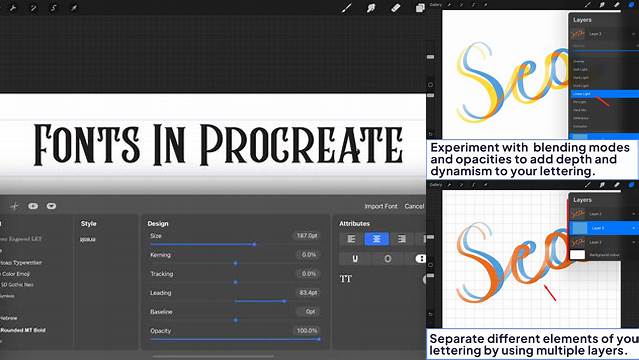
Download Fonts To Procreate: Easy Guide (2024)
Hey guys! Ever felt like your Procreate artwork was missing that special something? Chances are, it might just be the font! Choosing the right font can really elevate your designs, making them pop and convey the perfect message. But, how do you actually get those cool fonts into Procreate? Don't worry, we've got you covered. This comprehensive guide will walk you through everything you need to know about downloading and installing fonts in Procreate, turning you into a typography pro in no time. So, let's dive in!
1. Understanding Font Types and Procreate Compatibility
Before we even get into the nitty-gritty of downloading, it's crucial to understand what kind of fonts Procreate actually plays nice with. Not all fonts are created equal, you know? Procreate primarily supports TrueType Fonts (.ttf) and OpenType Fonts (.otf). These are the industry standards and you'll find most fonts available in these formats. Trying to import other font types? You might run into some serious compatibility issues. So, always double-check the file extension before you hit that download button! Knowing this simple fact can save you a ton of headache later on. Imagine spending ages finding the perfect font only to realize it won't even work – talk about a bummer!
TrueType Fonts (.ttf): The Classic Choice
TrueType fonts have been around for a while, and they're a reliable choice for most design projects, including Procreate. They're widely supported and generally smaller in file size, which is a bonus if you're working with limited storage on your iPad. While they might not have all the fancy features of OpenType fonts, TrueType fonts get the job done and are super easy to work with. Think of them as the dependable workhorses of the font world! They’re also incredibly versatile, ranging from simple sans-serif styles to elegant scripts. You’ll find a massive selection of TrueType fonts both free and paid, so you’re bound to find something that suits your project.
OpenType Fonts (.otf): The Feature-Rich Option
OpenType fonts are the newer, more advanced sibling of TrueType. They offer a wider range of features, including ligatures, alternate characters, and different stylistic sets. This means you can get a much more polished and professional look with OpenType fonts, especially for detailed typography work. If you're aiming for that extra level of finesse, OpenType is definitely the way to go. Imagine adding beautiful swashes and flourishes to your lettering – OpenType makes it all possible! Plus, they often support a broader range of languages and character sets, making them ideal for international projects.
Why Compatibility Matters in Procreate
Okay, so why all this fuss about font types? Well, Procreate is a fantastic app, but it does have its limitations. Trying to import incompatible fonts can lead to crashes, display errors, or just plain failure to load. Trust us, you don't want to be in the middle of a masterpiece and have your font suddenly disappear! So, sticking to TTF and OTF formats is the safest bet. Before you start downloading fonts like crazy, take a moment to ensure they are in a compatible format. A little bit of caution upfront can save you a whole lot of frustration down the line.
2. Finding Reputable Font Sources Online
Now that we know what kind of fonts we're looking for, where do we actually find them? The internet is a vast ocean of fonts, but not all sources are created equal. You want to make sure you're downloading from reputable sites to avoid malware or copyright issues. There are tons of fantastic websites offering both free and premium fonts, so let’s explore some of the best options! Think of it like treasure hunting, but instead of gold, you're searching for the perfect font!
Google Fonts: A Free Font Goldmine
Google Fonts is a fantastic resource for high-quality, free fonts. They have a huge library with a diverse range of styles, from classic serif fonts to modern sans-serifs and everything in between. Plus, all the fonts on Google Fonts are open-source, which means you can use them in both personal and commercial projects without worrying about licensing fees. It’s a total win-win! The interface is super user-friendly too, allowing you to easily preview fonts and filter by categories. If you're just starting out or working on a budget, Google Fonts is an absolute lifesaver.
DaFont: A Community-Driven Font Hub
DaFont is another popular option, especially for those looking for more unique or decorative fonts. It’s a massive library, and the fonts are categorized by style, making it easy to browse and find what you need. However, keep in mind that DaFont is a community-driven site, so the licensing terms can vary. Always double-check the license before using a font in a commercial project. Think of DaFont as a treasure trove – you might stumble upon some real gems, but it's important to be a savvy shopper and read the fine print!
Adobe Fonts: For the Creative Cloud Subscribers
If you're an Adobe Creative Cloud subscriber, you're in luck! Adobe Fonts offers a vast library of high-quality fonts that are included in your subscription. This is a huge perk, as you get access to a wide variety of professional-grade fonts without any extra cost. Plus, the integration with Adobe products is seamless. You can activate fonts directly from the Creative Cloud app, and they’ll be instantly available in Procreate and other apps on your iPad. It’s like having a VIP pass to a font paradise!
Premium Font Foundries: Investing in Quality
If you're working on a professional project or want to elevate your designs, consider investing in premium fonts from reputable font foundries. Sites like MyFonts, FontShop, and Creative Market offer a curated selection of high-quality fonts, often designed by expert typographers. While they come with a price tag, premium fonts often offer better design, more features, and clearer licensing terms. Think of it as investing in a top-notch tool that will help you create truly stunning work.
Okay, so you’ve got your font selected, but typography is about more than just the typeface itself. The spacing between the letters, lines, and even the overall text block can dramatically impact the look and feel of your design. Kerning, leading, and tracking are the three key elements of typography spacing, and mastering them can take your typography from good to amazing. Let’s break them down!
Kerning: Adjusting Space Between Letters
Kerning is the process of adjusting the space between individual letters. Some letter combinations, like